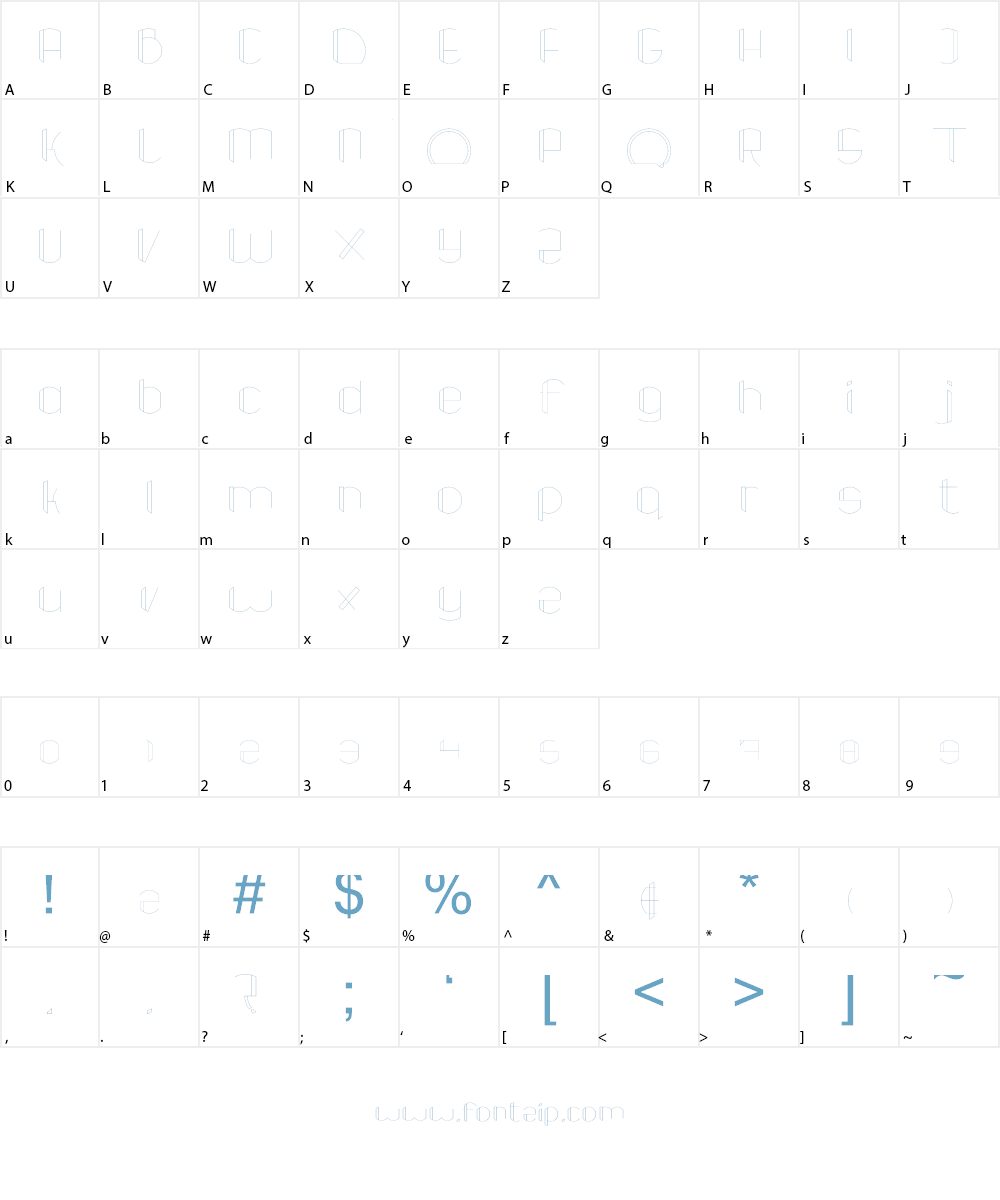
If you're close to Nairobi City to see its tall buildings rising from the horizon, and if you happen to be standing at the side of the road waiting for a matatu to get you there, if it's your lucky day, you'll hear a makanga shout "Tao mbao! Tao mbao!" You'll get excited and you'll hurry to get into the matatu even as it begins to speed off. You'll have hardly settled down when the makanga will look at you expectantly, and you'll reach into your pocket. You'll shove aside the crinkly paper money and at the very bottom you'll find a single mbao, and you'll fish it out and hand it to the makanga, your thumb and index finger feeling its concentric circles between them. You'll probably feel a tiny pang at having to part with such a particularly shiny new mbao, but as you hand over the familiar copper-nickel-aluminium-bronze coin, you'll have a slight smile on your face because really, it's such a steal.